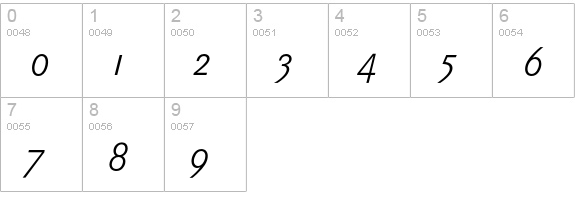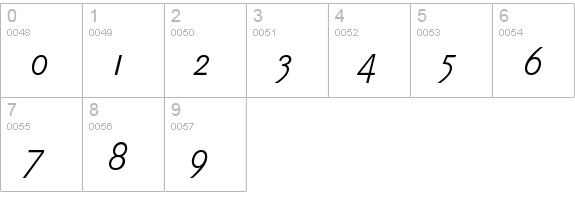
Corporate S BQ Expert Light Italic OsF Font Details
Corporate S BQ Expert Light Italic OsF is a refined, elegant, italic variant in the Corporate typeface family \xE2\x80\x94 well suited to elegant body text, refined sub-headings, and luxury branding.
Introducing the stunning Corporate S BQ Expert Light Italic OsF font, a sleek and modern typeface designed for corporate and business use. This sophisticated font features a perfect balance of elegance and professionalism, making it ideal for various branding and design projects. With its clean lines and stylish curves, Corporate S BQ Expert Light Italic OsF exudes a sense of sophistication and refinement. Best of all, this premium font is available for free download at FontsMarket.com! Whether you're working on a website, marketing materials, or any other project that requires a touch of class, Corporate S BQ Expert Light Italic OsF is the perfect choice. Don't miss out on this fantastic opportunity to elevate your designs with this exquisite typeface. Download it now and add a touch of elegance to your next project!